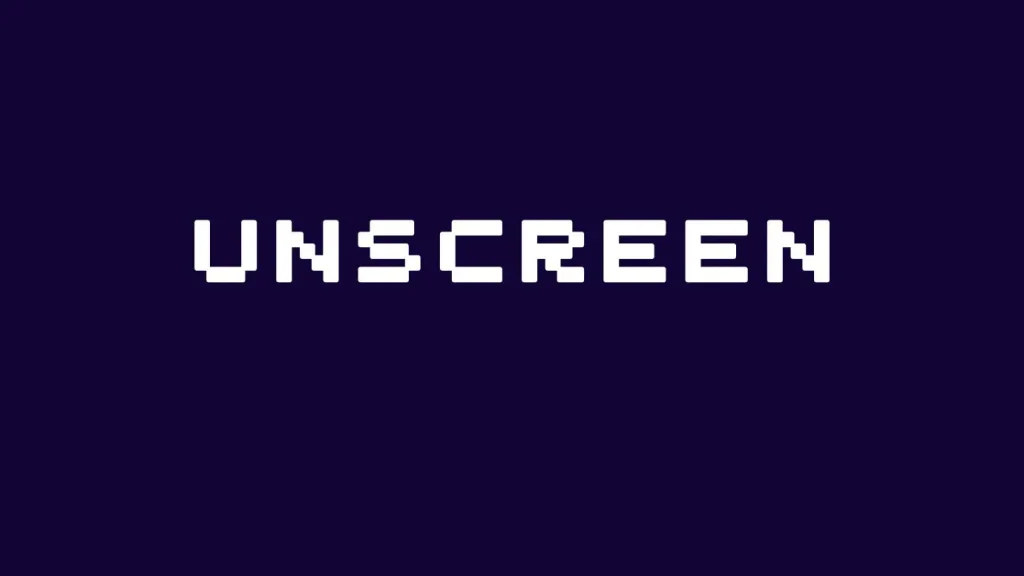
Its textures are sleek and organized. Numerous other applications, like Adobe Illustrator, Canva, and InDesign, also utilize this pleasant typeface. Its
Unscreen Font is a techno style that was created for a variety of applications and uses. Both OTF and TTF file formats are available for this fantastic typeface. It has numerous other characters as well as capital and lowercase letters. For many designs, its generating tool is ideal.
Its textures are sleek and organized. Numerous other applications, like Adobe Illustrator, Canva, and InDesign, also utilize this pleasant typeface. Its copy-and-paste feature is well known. It supports nearly 67 different languages around the world.
The CSS file has given this beautiful typeface clear instructions. The font style is perfect as long as its design gives a beautiful and joyful vibe. This style can be applied in numerous ways to social media posts.
The Adobe application Canva and Photoshop can be used with this. It is suitable for labeling, emojis, symbols, writing materials, business cards, advertising, flyers, and invitation cards. Description of Unscreen Font By Manfred Klein
All designers desire to utilize this lovely typeface for their tasks and projects due to its unique character. You may create a variety of designs with this wonderful typeface family, including logos, banner layouts, posters, comic book covers, and more.
This is a sophisticated typeface with lovely vintage styles that can give your work a classic look. You may use a variety of designs, including posters, brochures, ads, business cards, gifts, and product packaging. This typeface can be used for assignments as well as for stylish and creative headings, titles, texts, and beautiful names. It can also be used for documentation needs, long paragraphs, and quotes.
It works best and is appropriate for usage in a variety of projects, including business cards, and vehicle wraps. It is a gorgeous typeface that works well for many elegant card designs.
This gorgeous typeface should be used in marketing graphics, posters, and logos. This typeface will work well for you whether you are creating captions, logos, or other display things.
Combination With Other Fonts
Use this typeface for a variety of projects, such as clothing printing and vehicle wrapping. Both digital and print projects can use the typeface. Combining this font with transcorner font will make it simple to add more beauty to your design.
Additionally, this typeface is renowned for its compatibility and may be used in creative combinations with a variety of other typefaces. This typeface can be used in a wide range of languages, and you can access a few nice typographic elements that will increase the adaptability of your projects.
More Info Know About Unscreen Font
Is Unscreen font is web safe typeface?
Where can I use the Unscreen Font?
You can use this typeface for headlines and other purposes, you can do so. Regular, weight is available in this typeface.
What type of font is Unscreen Font?
It is a sans serif typeface. Simple and modern type style are popular today. Create interesting store names, and logos with the typeface.